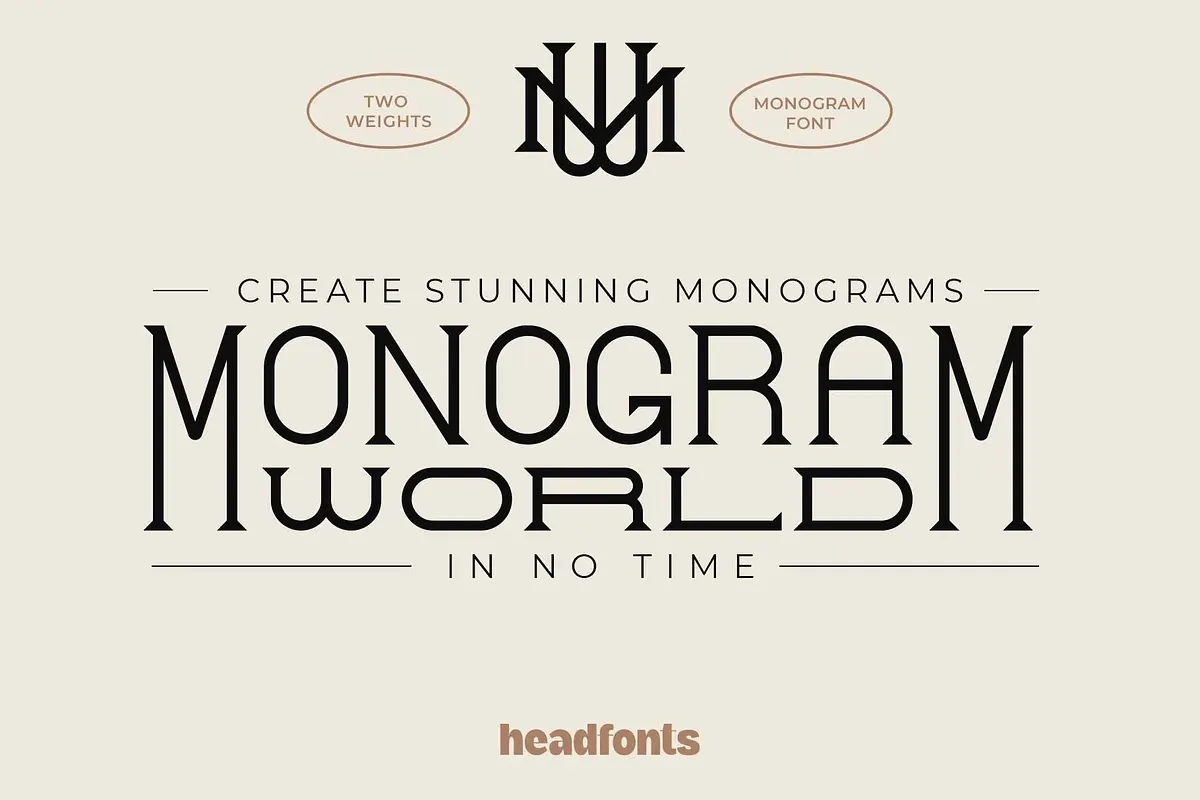
The Monogram World Serif Font Free Download is a refined and sophisticated serif typeface designed for elegant branding, logos, editorial design, and high-end print projects. With its strong, classic letterforms and timeless style, this font brings an air of sophistication and luxury to your creative endeavors.
With well-crafted serifs and balanced proportions, Monogram World is perfect for creating monograms, custom logos, and other stylish typographic designs. It includes uppercase and lowercase letters, numbers, punctuation, and multilingual support, offering flexibility for various design applications.